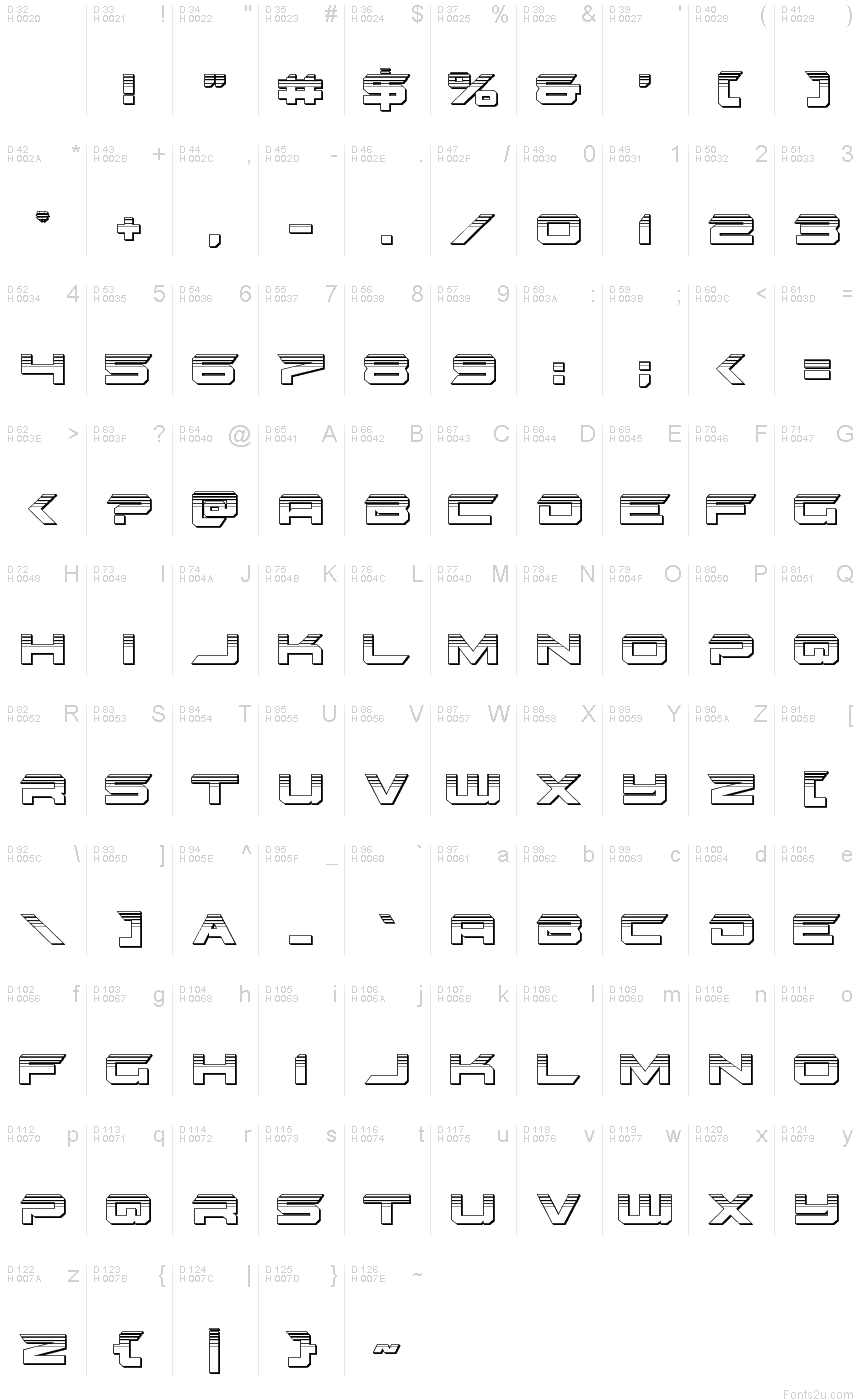
Gypsy Killer Platinum by Iconian Fonts is a free futuristic 3D display font with broad, engineered capitals. Thick outlines and clipped corners give the letters a machined, armor-plated silhouette. Horizontal speed lines cut across their upper sections.
It suits esports teams and performance brands rooted in motorsport graphics. The forms also fit game title cards and science-fiction posters, with stripes that suggest speed and layered metal. In merchandise, the lettering can become part of an emblem rather than neutral text.